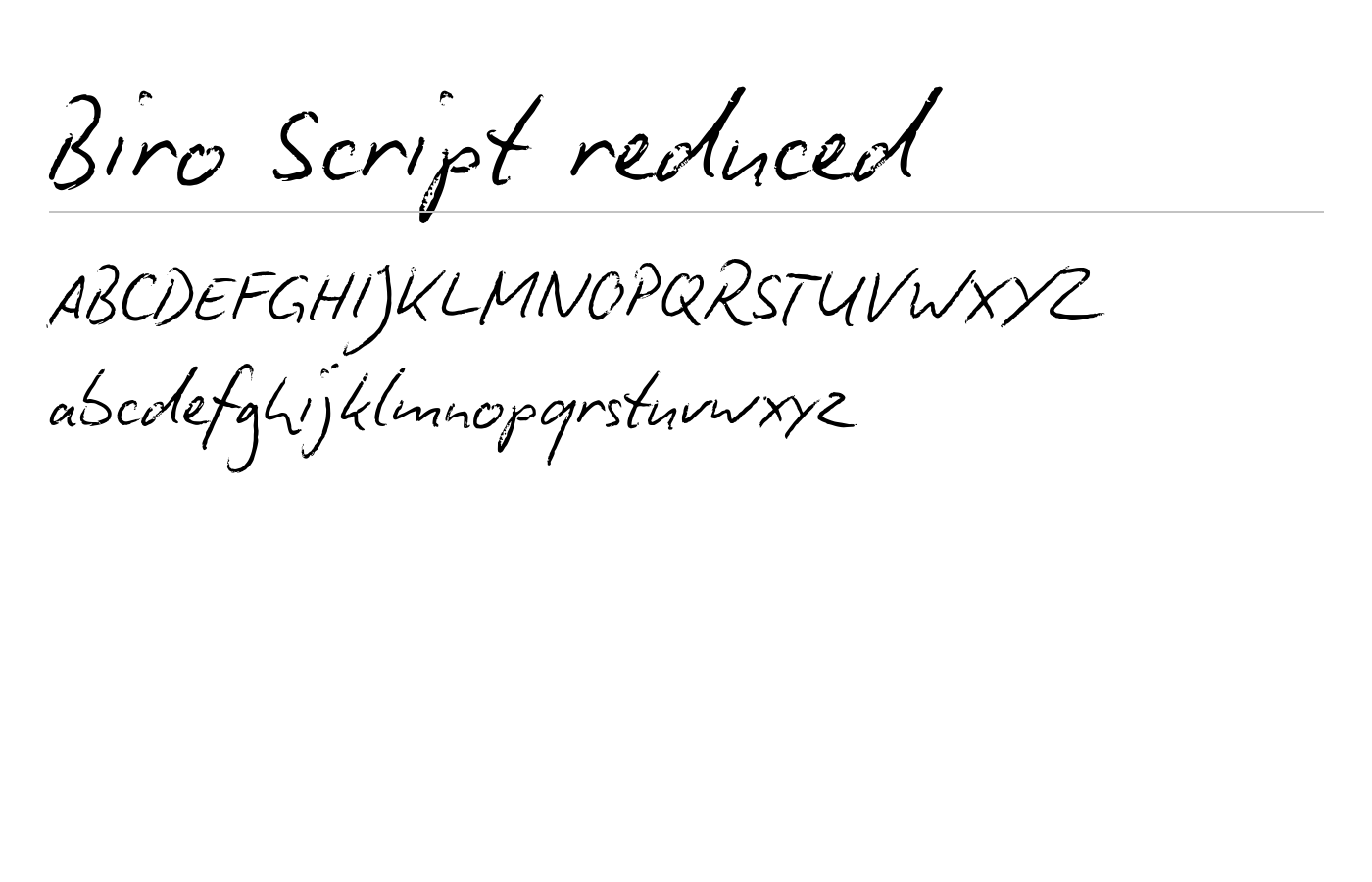
Biro Script reduced is a casual, handwritten script font with a textured, ink-brushed appearance that gives it a personal and artistic feel. Its slightly irregular strokes and natural flow make it ideal for creative projects, branding with a relaxed vibe, or any design seeking an authentic, expressive touch. This font works well in headlines, logos, and invitations where a handcrafted, informal style is desired.
Biro Script reduced Font
About Biro Script reduced Font
| Font family | Biro Script reduced Font |
| Designer | Ingo Zimmermann |